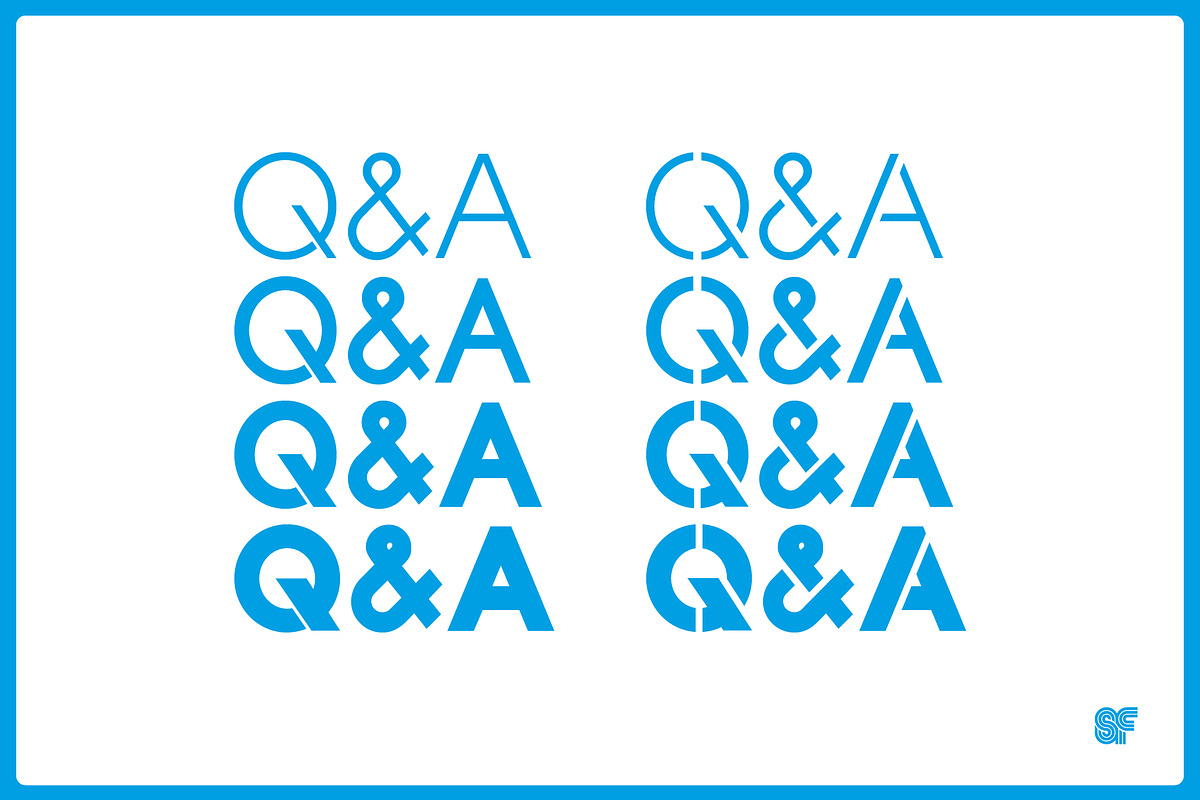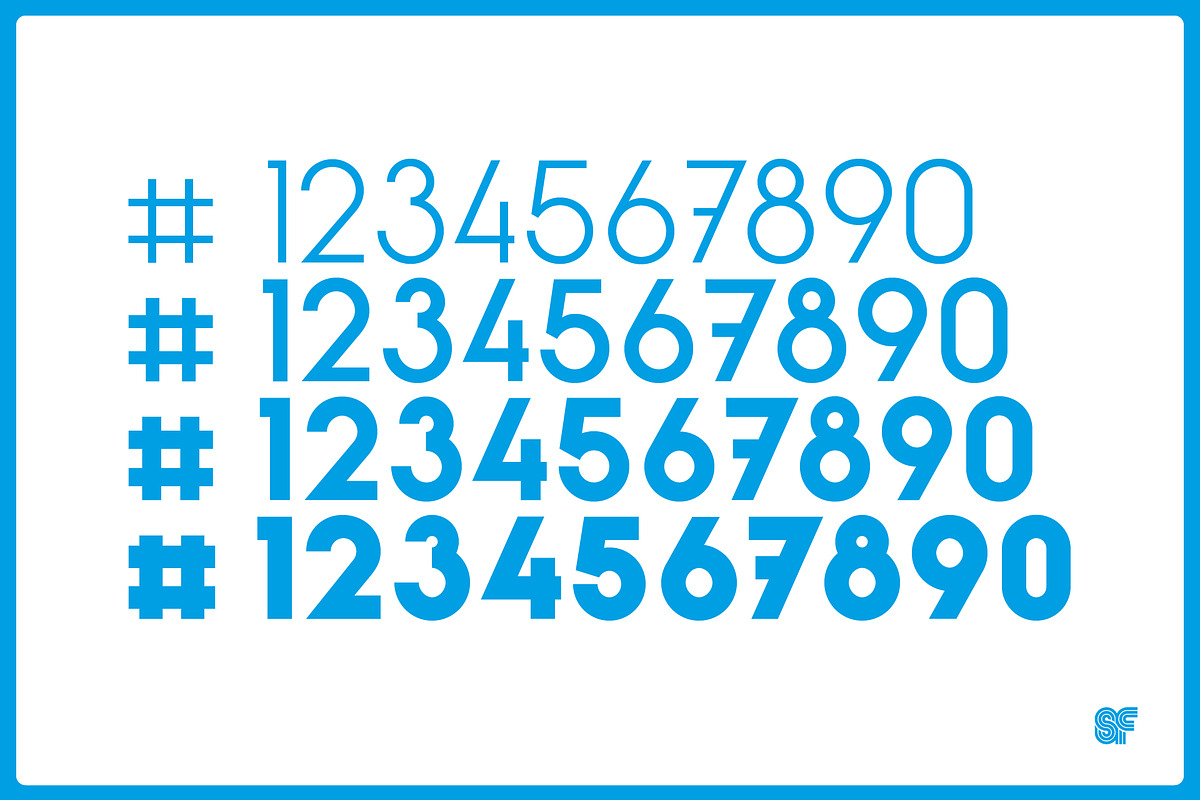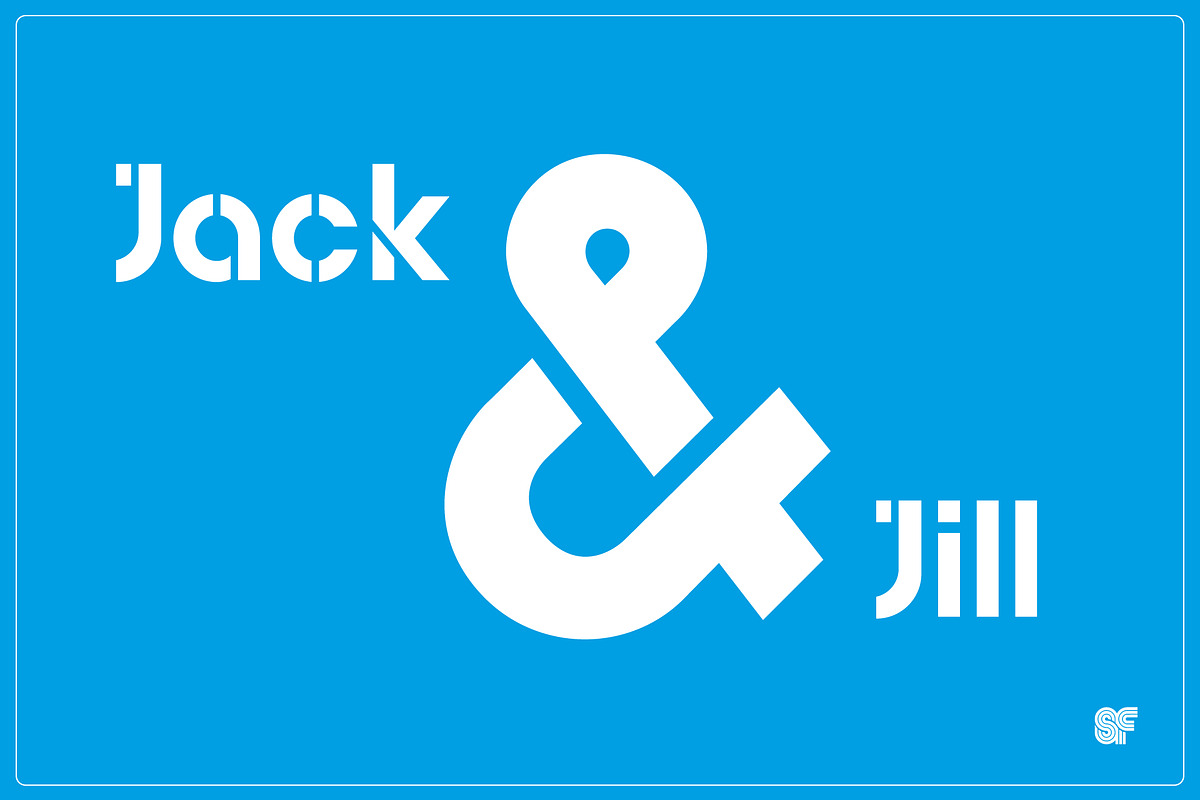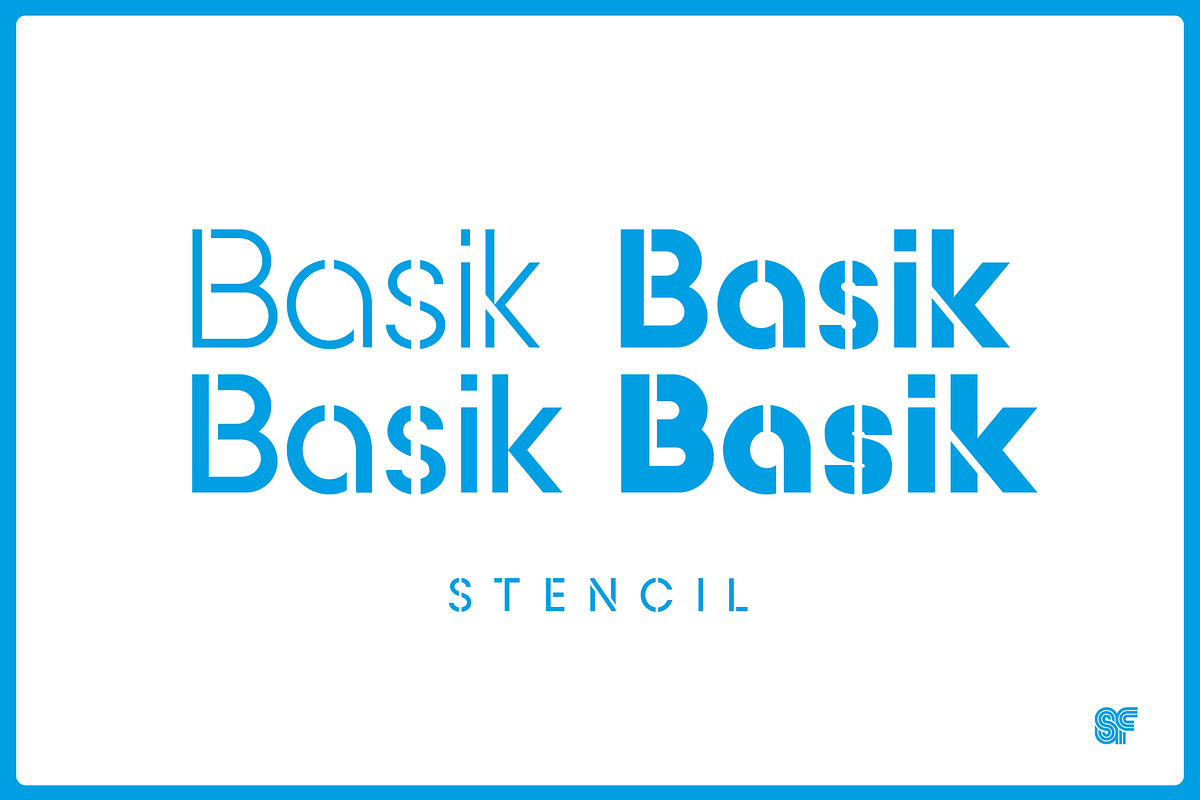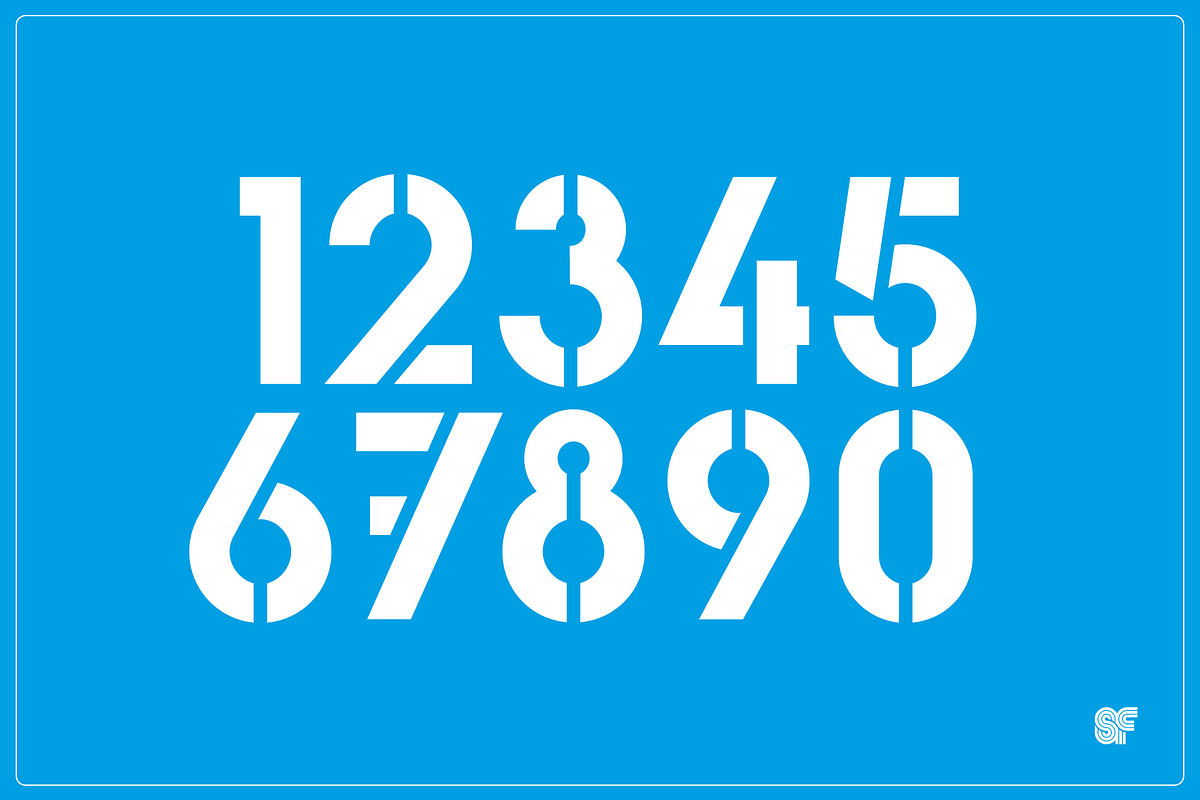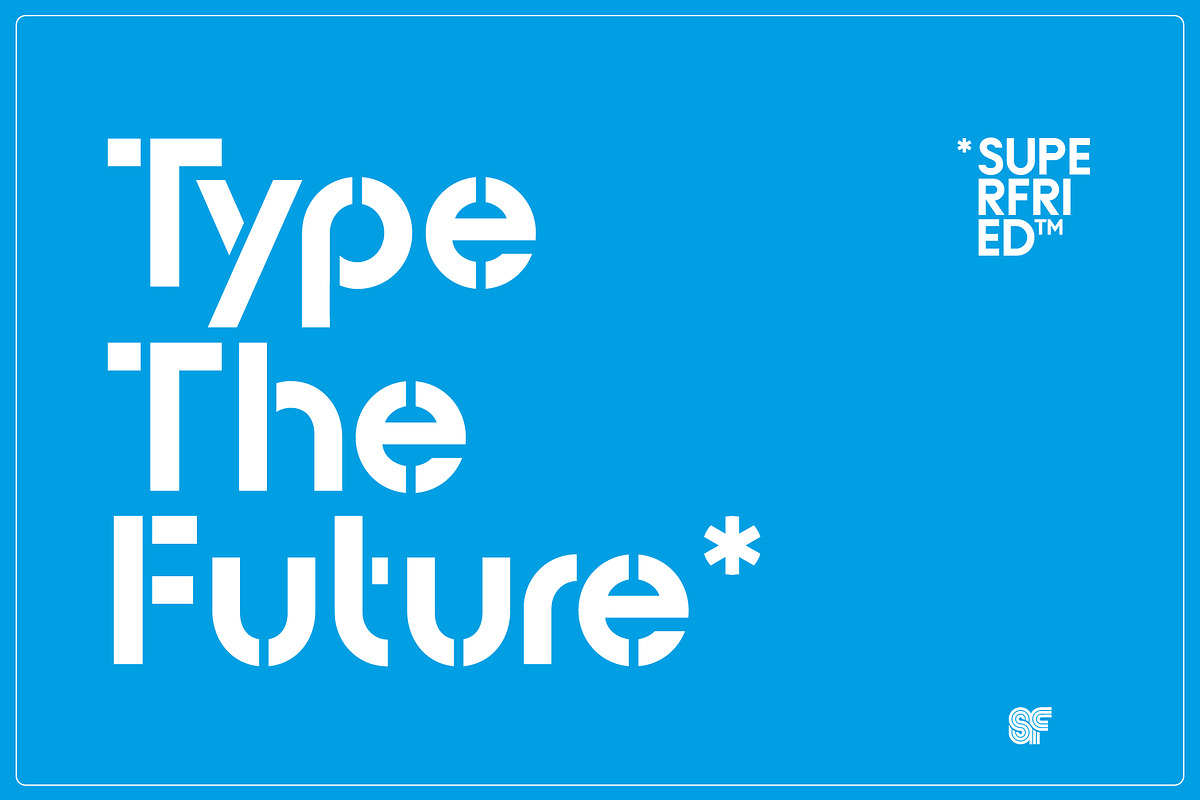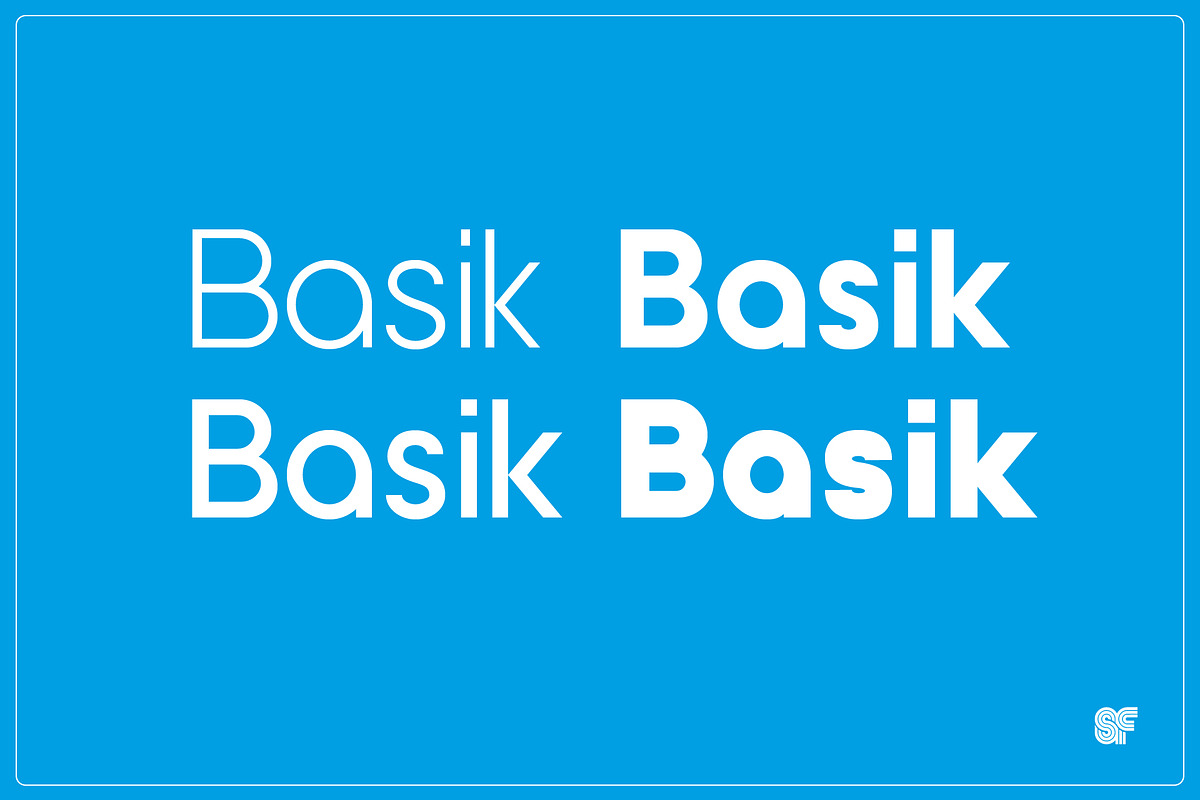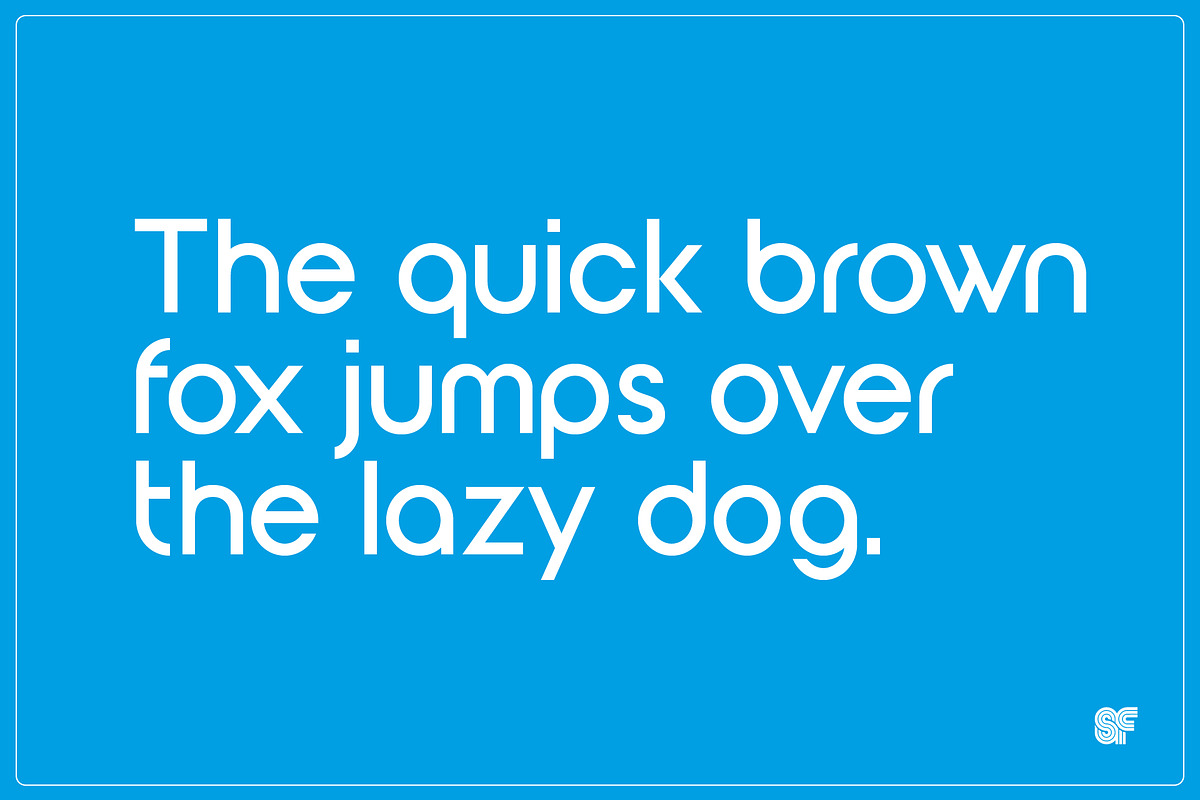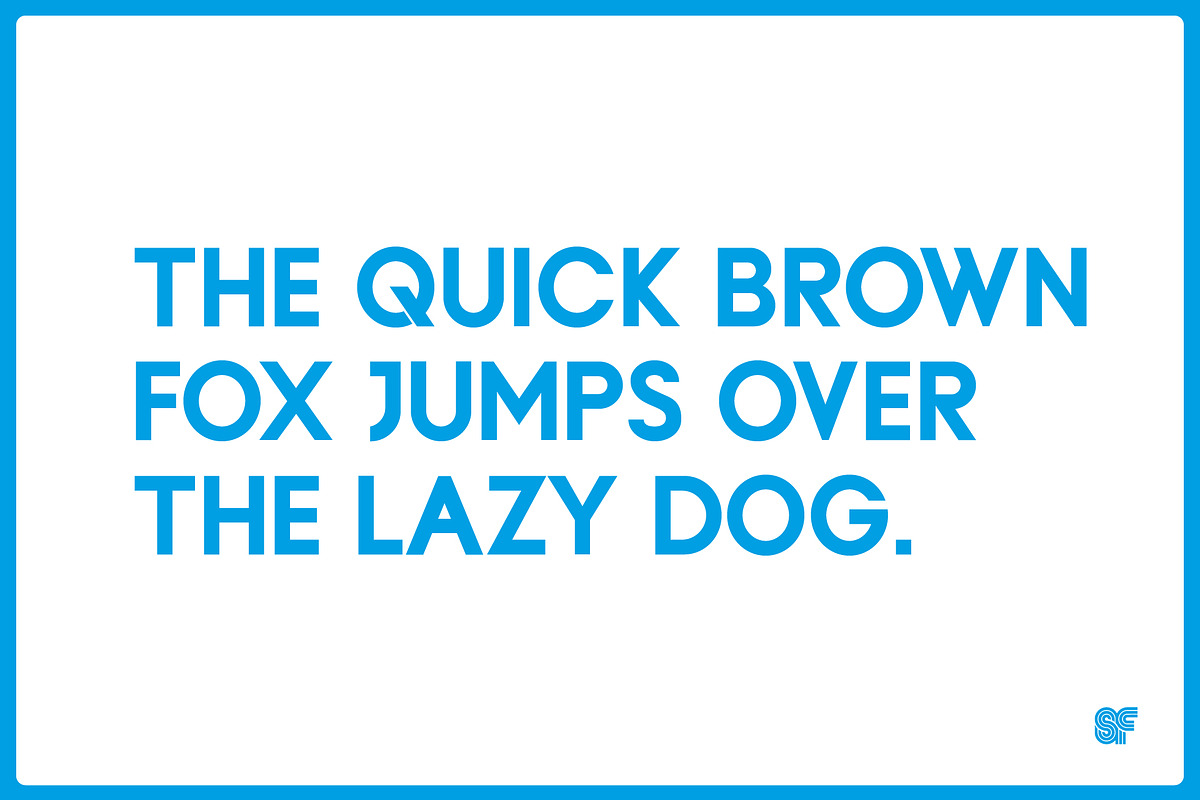
Basik | Sans Typeface | 8 Fonts
Basik is back and remastered for 2025. Originally designed by Superfried in 2011, this clean and versatile sans-serif stands out with its spurless letterforms, allowing stems to flow seamlessly into the shoulders. The result is a distinct, friendly, and slightly retro aesthetic.
The latest version of Basik includes four distinct weights: Book, Medium, Bold, and Heavy – each available in stencil format, eight unique styles in total. Perfect for both body copy and display text, Basik is an excellent choice for branding, web design, and editorial projects. Its evolution reflects a commitment to quality and adaptability.
Discover the charm of the Basik typeface family, a valuable addition to any designer's toolkit.